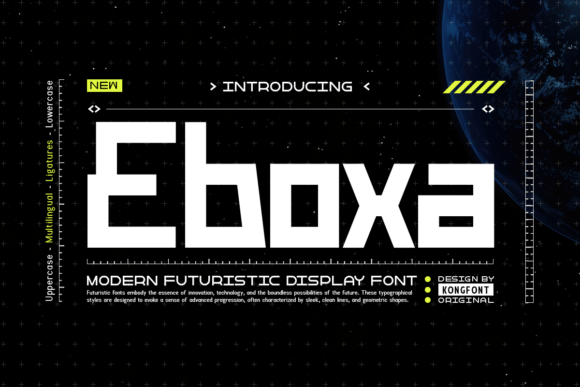
Eboxa: The Futuristic Typeface for Modern Editorial Design
Eboxa is a sleek and modern typeface with a futuristic vibe, perfect for tech-inspired designs, sci-fi projects, gaming logos, and digital branding. Its clean lines and sharp edges make it an exceptional choice for publishers seeking to elevate their visual identity in a crowded digital landscape. As an editorial designer who constantly balances aesthetic impact with reader engagement, I have found that the right Display font can transform a standard article into a compelling narrative experience.
Eboxa for Gaming Logos and Tech-Inspired Blog Headers
When you are designing headers for a blog focused on technology or gaming, Eboxa provides the immediate authority needed to capture attention. This Display font excels at establishing a mood of innovation and high-tech precision, which is essential for content creators in the digital space. Unlike generic sans serif options, the sharp edges of Eboxa create a distinct visual hierarchy that separates your headlines from the body text effectively. For a gaming magazine or a tech review site, using this Fonts collection as a primary headline tool ensures your publication feels current and cutting-edge. It allows you to build a brand identity that resonates with audiences looking for the latest in digital culture.
Applying Eboxa to Sci-Fi Project Covers and Ebook Titles
The unique personality of Eboxa makes it ideal for packaging creative works that demand a sense of wonder or advanced futurism. Whether you are self-publishing a sci-fi novel or creating a digital guide on emerging technologies, the title page serves as the first impression. By utilizing Eboxa, you can ensure your cover art communicates the genre immediately without relying solely on imagery. The clean lines prevent visual clutter, allowing the typography to stand out against complex backgrounds. This approach is particularly effective for ebook creators who need their titles to pop in thumbnail views on online marketplaces. When used as a display font for chapter openers, it sets a consistent tone that guides the reader through the story's futuristic world.
Eboxa for Digital Branding and Newsletter Graphics
In the realm of digital marketing and newsletters, consistency is key to building trust with your audience. Eboxa offers a versatile toolkit for designers who want to maintain a cohesive look across various platforms. Its modern aesthetic works seamlessly with social media graphics, ensuring that your promotional materials look professional and polished. When integrating this Display font into your email campaigns, the sharp edges draw the eye directly to the call-to-action buttons and key announcements. It transforms standard text blocks into engaging visual elements that encourage clicks and interaction. For content brands aiming to establish a premium feel, incorporating Eboxa into your logo design or header images signals a commitment to quality and forward-thinking design.
Integrating Eboxa into Printable Guides and Worksheets
While Eboxa shines on screens, its legibility also extends well to physical print materials when used strategically. For creators producing printable planners, worksheets, or instructional guides, this font adds a layer of sophistication that elevates the perceived value of the product. Imagine a coaching workbook where section headings are set in Eboxa; the sharp, defined characters provide clear structure without overwhelming the user. It is important to note that while Eboxa is excellent for titles and accents, pairing it with a highly readable serif or sans serif font for the main body text is crucial for long-form reading. This combination ensures that the document remains accessible while maintaining a strong visual style. The contrast between the futuristic display font and a traditional body font creates a balanced layout that is both attractive and functional.
Eboxa for Magazine Covers and Publication Branding
Magazine editors know that the cover is the most critical element in driving sales and subscriptions. Eboxa brings a dynamic energy to cover layouts that can help a publication stand out on newsstands or digital feeds. The font's ability to convey a "futuristic vibe" allows editors to experiment with bold, large-scale typography that dominates the visual field. When paired with high-quality photography, the clean lines of Eboxa complement rather than compete with the image. For niche publications focusing on innovation, design, or future trends, this Fonts selection acts as a visual shorthand for the content within. It helps define the voice of the magazine, making it instantly recognizable to regular readers.
Using Eboxa for Quote Graphics and Pull Quotes
Breakup text and pull quotes are essential for keeping readers engaged in long articles, and Eboxa offers a stylish way to highlight these moments. Instead of using standard italics or simple bold text, applying Eboxa to significant quotes adds a graphic element that breaks up the flow of the page. This technique is particularly useful for digital magazines and blogs where visual interest is paramount. The sharp edges of the letters create a sense of emphasis that naturally draws the reader's eye to the most impactful parts of the content. By treating typography as a design asset, you can enhance the storytelling aspect of your writing. However, it should be used sparingly to avoid fatigue; a few well-placed instances of Eboxa can be more powerful than using it for every single quote.
Optimizing Eboxa for Screen Reading and Mobile Layouts
As web traffic shifts heavily toward mobile devices, the scalability of your chosen Display font becomes a priority. Eboxa maintains its character even at smaller sizes, provided it is not overused. For responsive web design, using this font for navigation menus or sticky headers can create a memorable user experience. The clean lines ensure that the text remains crisp on high-resolution Retina displays, preventing any blurriness that might detract from the professional look of your site. When exporting PDFs for ebooks or whitepapers, testing the font rendering on different devices is essential to ensure the sharp edges translate correctly. Proper kerning and line spacing are vital when working with Eboxa to ensure that the futuristic aesthetic does not compromise readability on small screens.
Selecting the Right Font Pairings for Editorial Projects
To maximize the effectiveness of Eboxa, strategic font pairing is necessary to balance its bold personality with functional readability. A classic approach is to pair this modern display font with a traditional serif font for body copy, creating a timeless yet contemporary contrast. Alternatively, a clean sans serif font works well for captions, footnotes, and navigation elements, providing a neutral backdrop that lets Eboxa take center stage. This hierarchy helps guide the reader through the content logically, ensuring that the visual excitement of the headlines does not distract from the message. By carefully selecting complementary fonts, you can create a unified design system that supports your brand identity across all mediums.